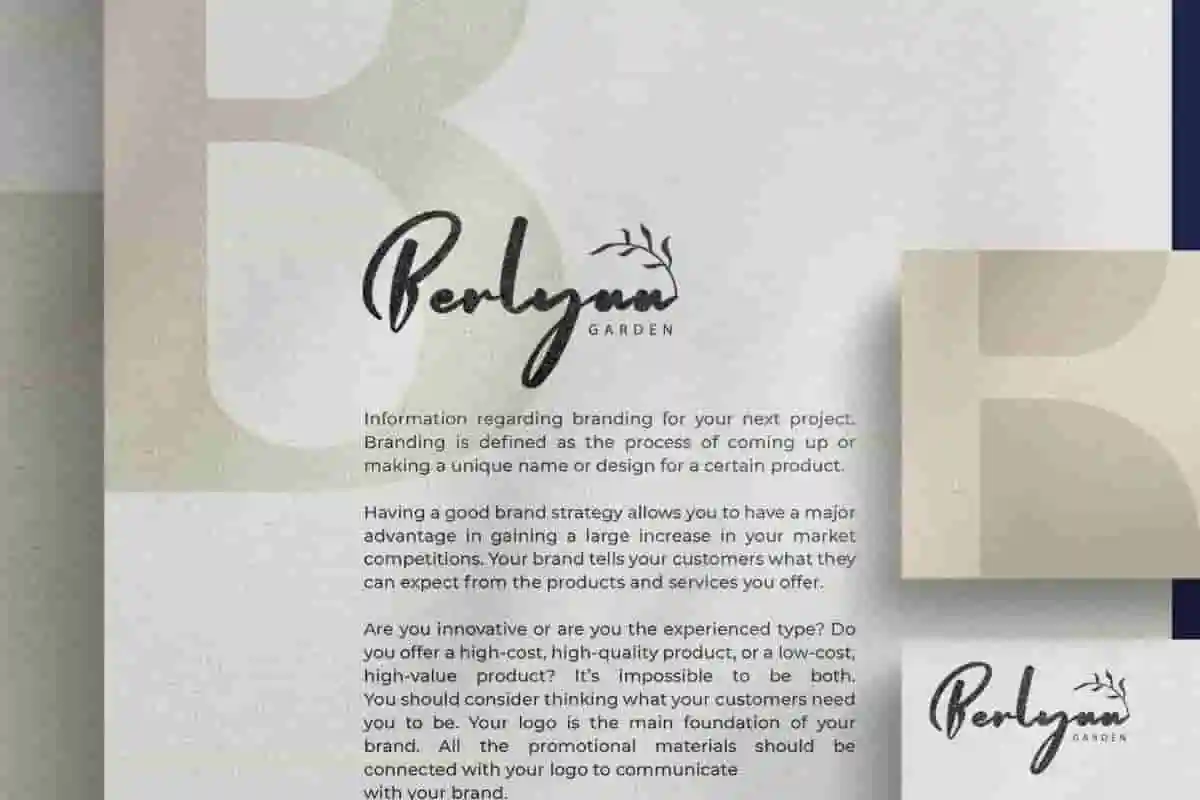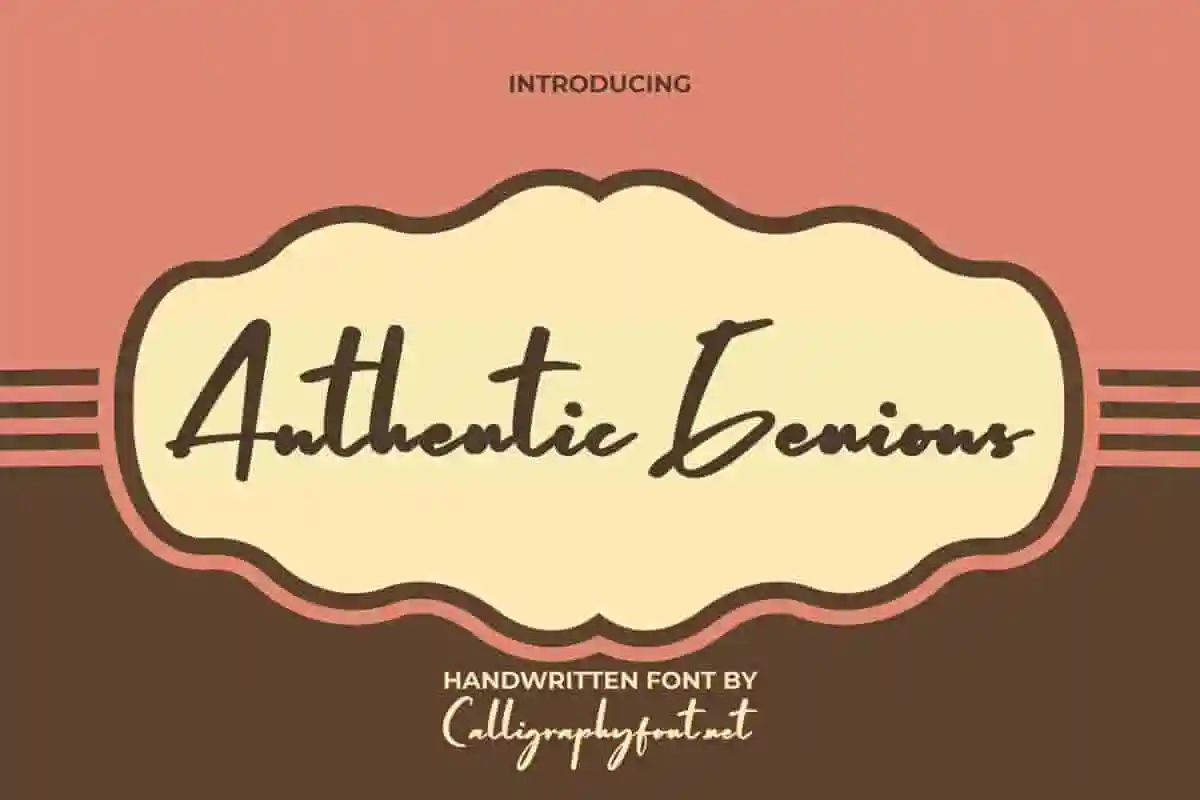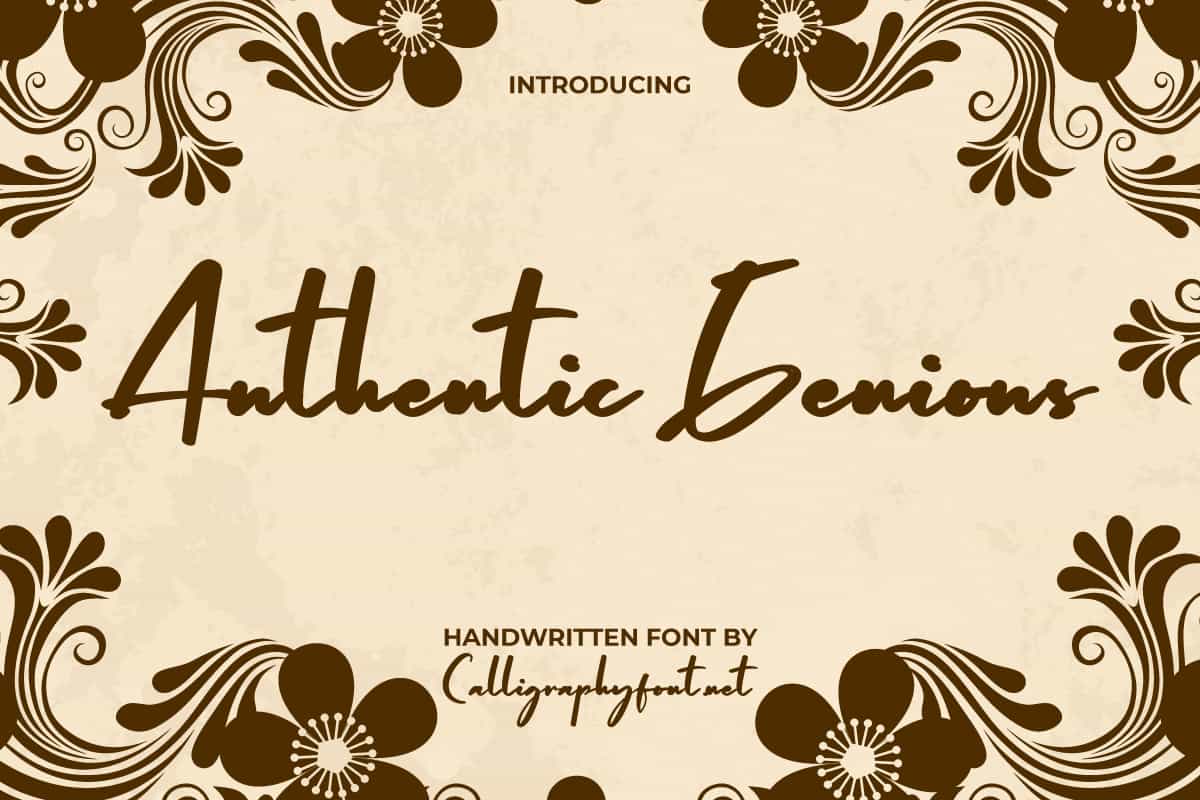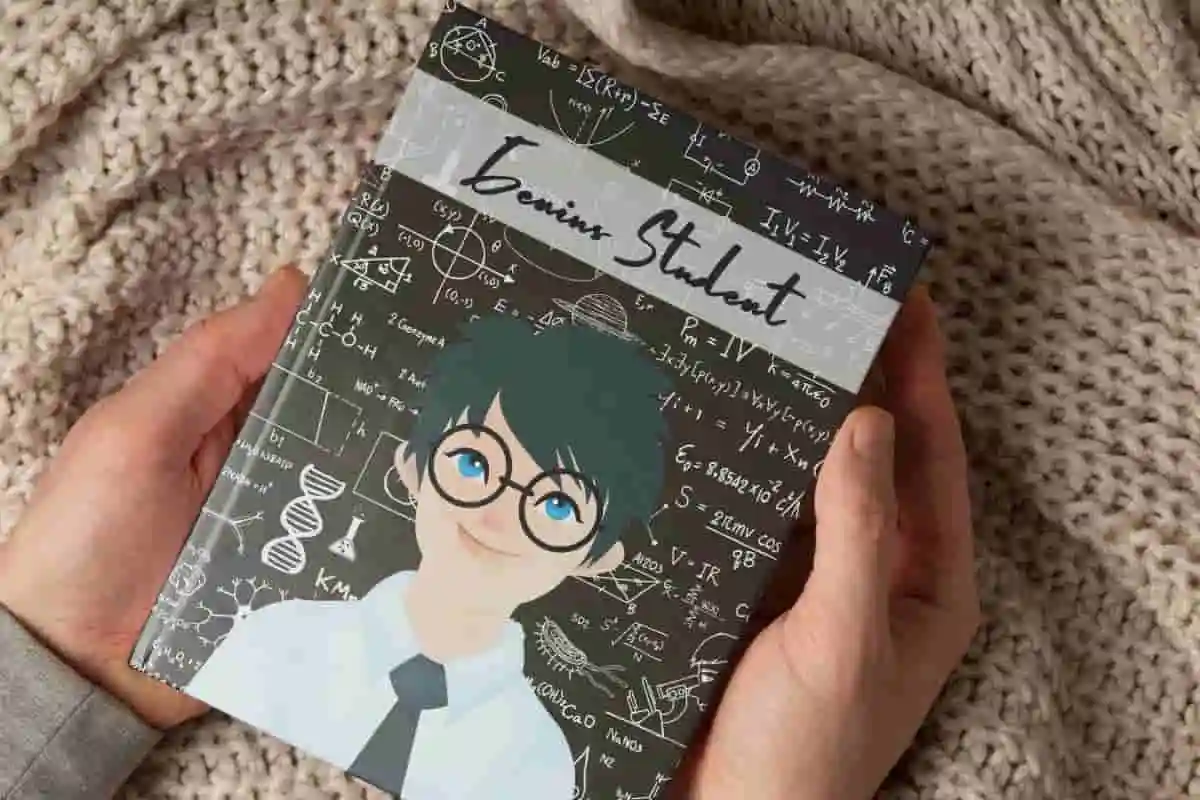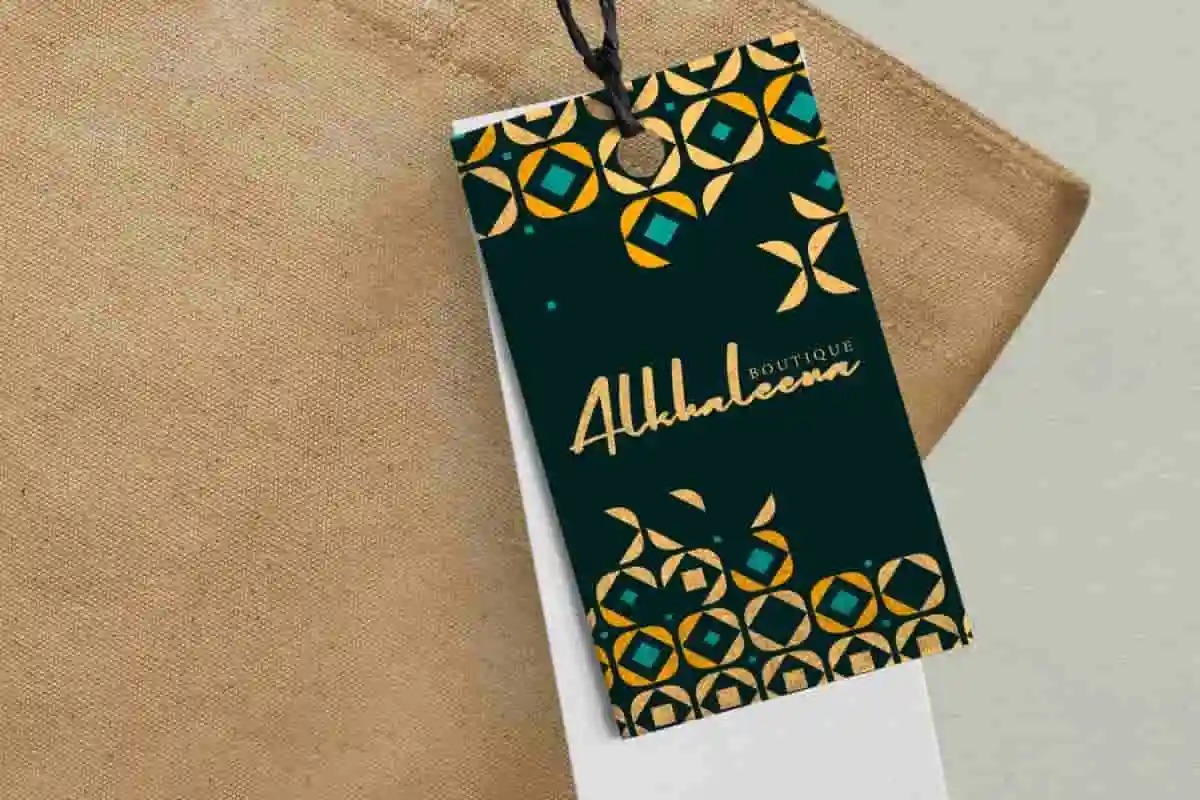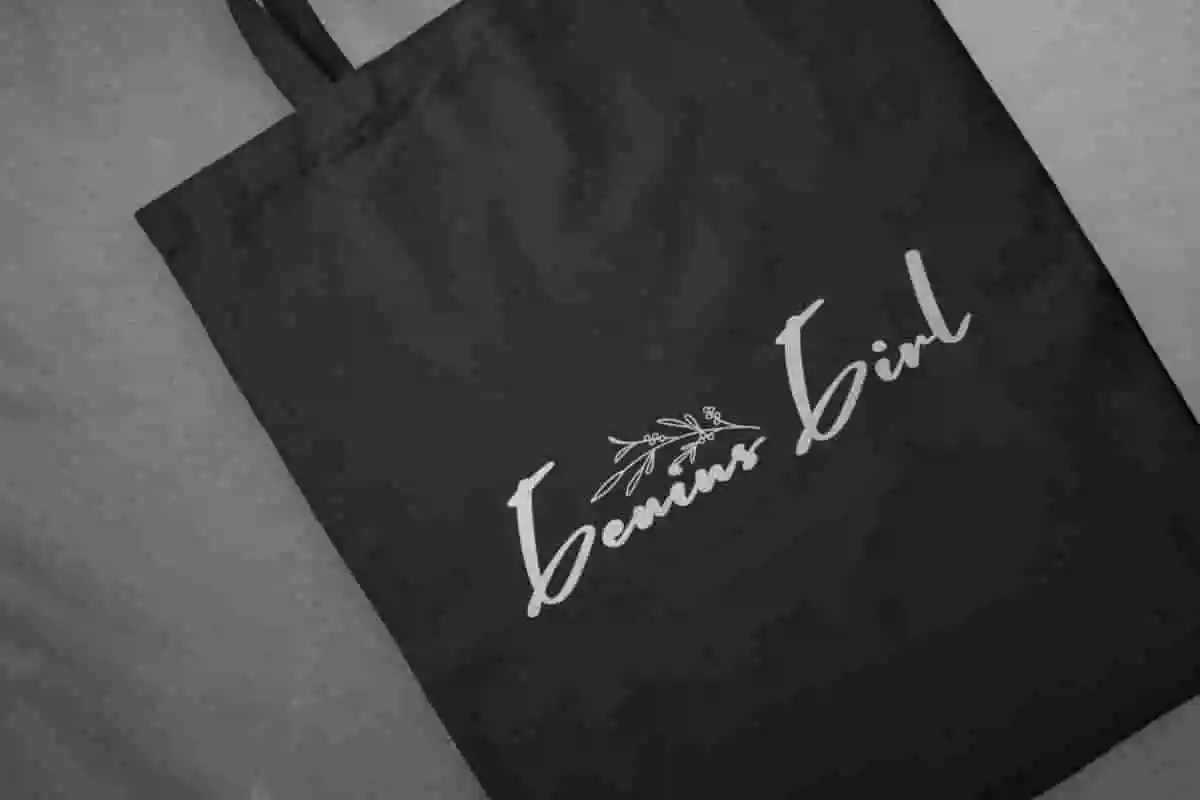
Authentic Genious Font
Authentic Genious Font is a stunning handwritten font that will provide you a variety of romantic letters for any work design yo create!
Authentic Genious Font is a bold brush handwritten font. This font has thick lines and a little complicated so it’s a little difficult to identify, but it still has beauty. It will be good to complement any project design, such as invitation, stationery, website page, label, custom design, marketing material, poster, menu, cover, flyer, brand image, brochure, signage, screen print, title, and many more!
Authentic Genious Font can make every design look stunning, so it can be used by various industries, such as fashion, event or wedding organizer, advertising, beauty product, florist, content creator, graphic design, handicraft, homeware, interior design, printing, publishing, etc.
Authentic Genious Font comes with a full set of Uppercase and Lowercase Basic Characters, Number, a large range of Punctuation, and Symbol. It also comes with multilingual character support. Ready to use both on Windows machine or Mac with simple installations. It’s tested to work well in the Adobe Apps (Illustrator, Adobe InDesign, Adobe Photoshop) CorelDraw, and others. PUA Encode Characters means you can access all the characters easily – Fully accessible without additional design software.